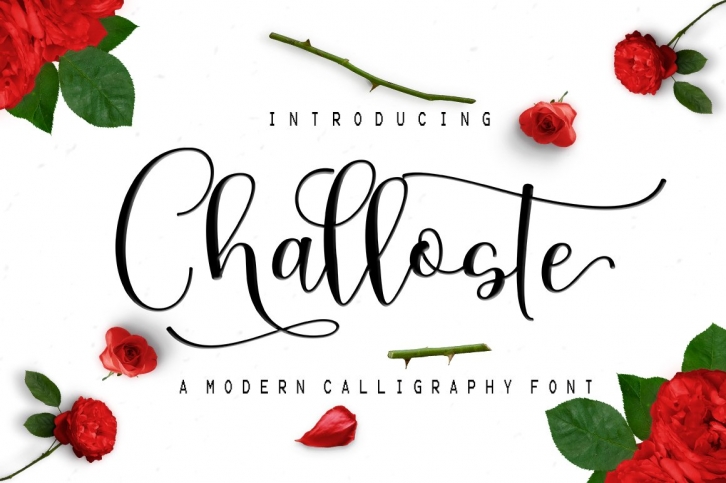
Challoste Script is a gorgeous font that was realeased on August 8, 2020. The font can be used in many style contexts and design environments. Perfect for invitations, magazines, websites, logos, and more! It was designed by madjackfont and the file size is 21.24 MB. Thanks for checking out this font!